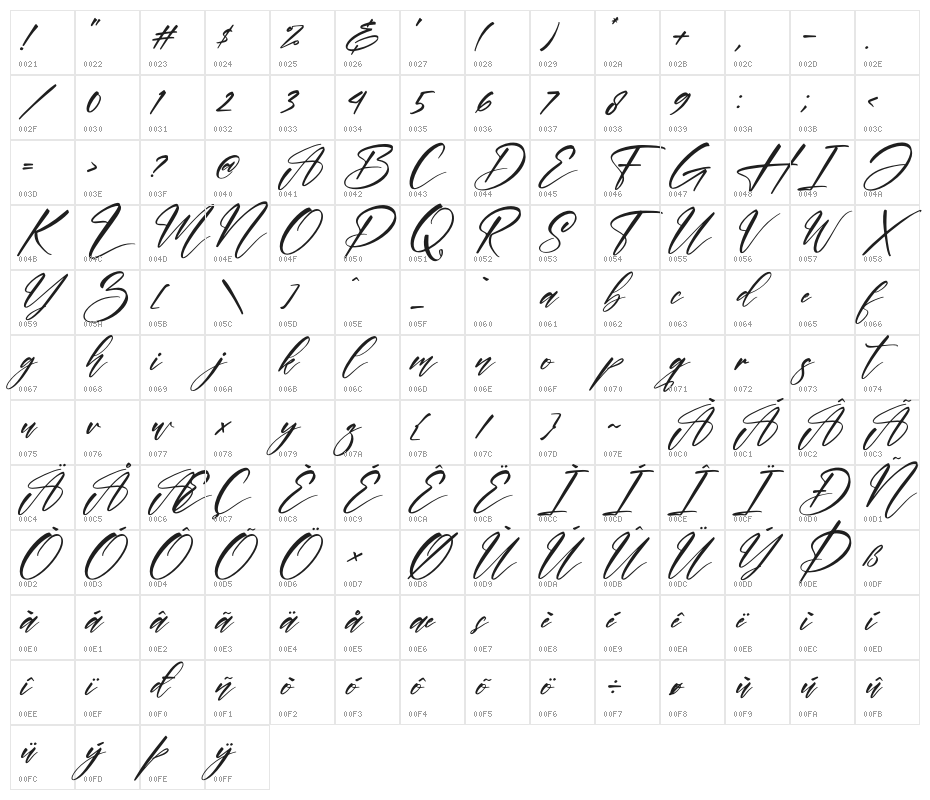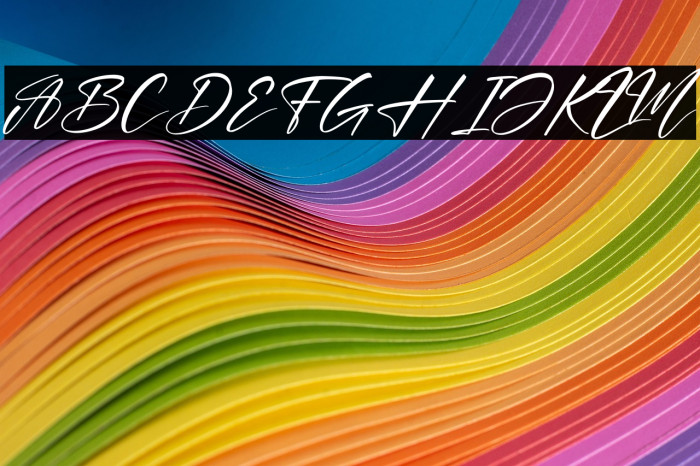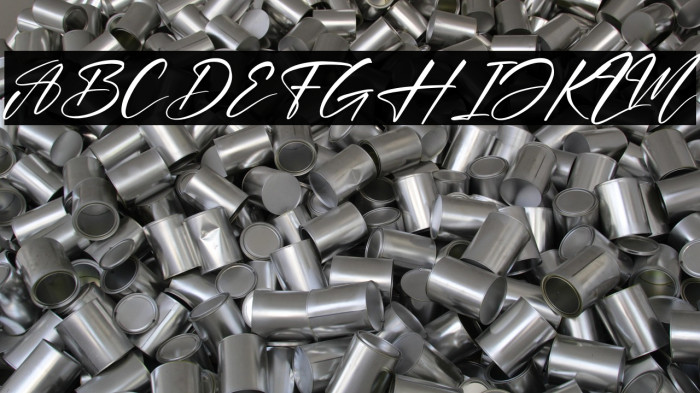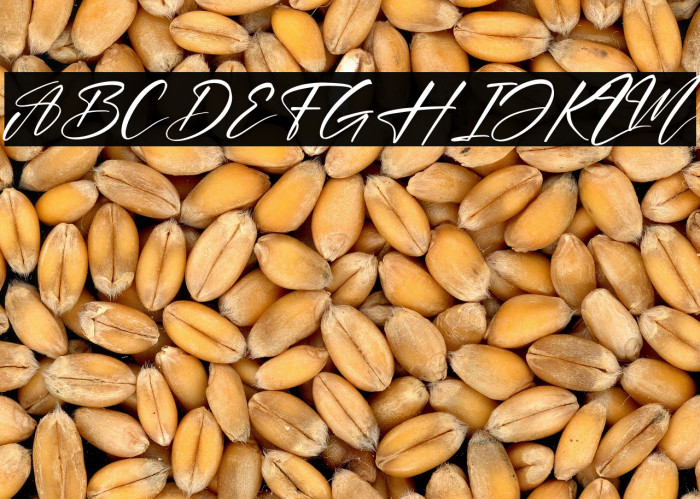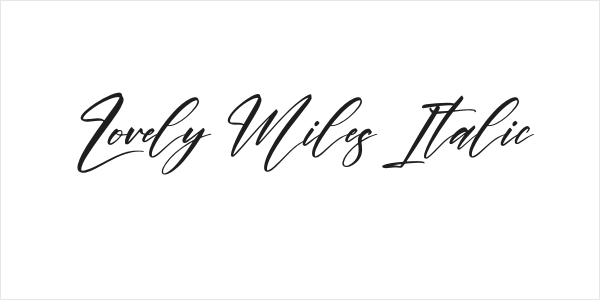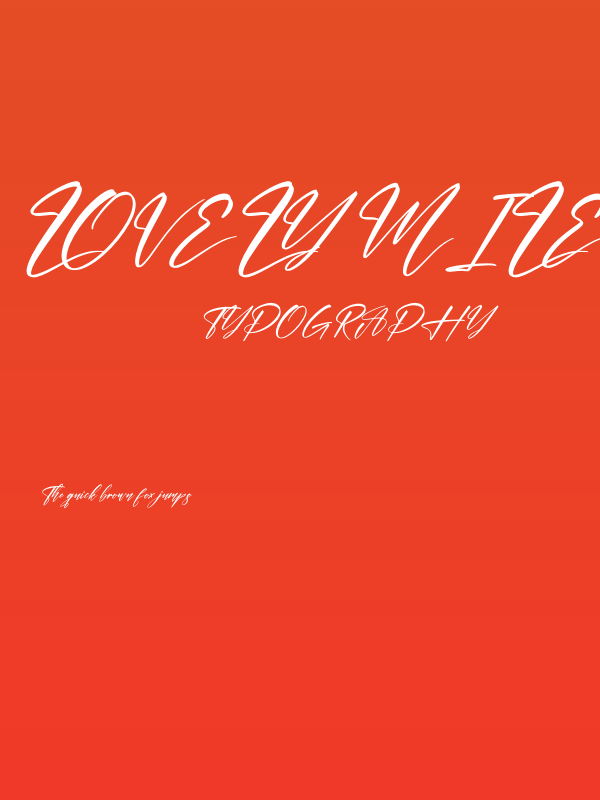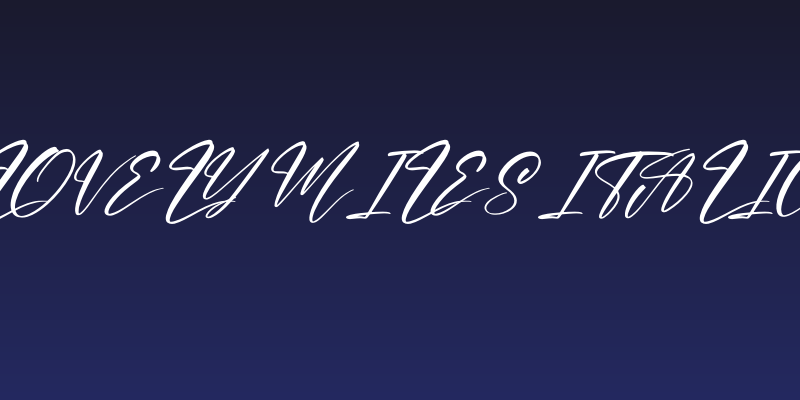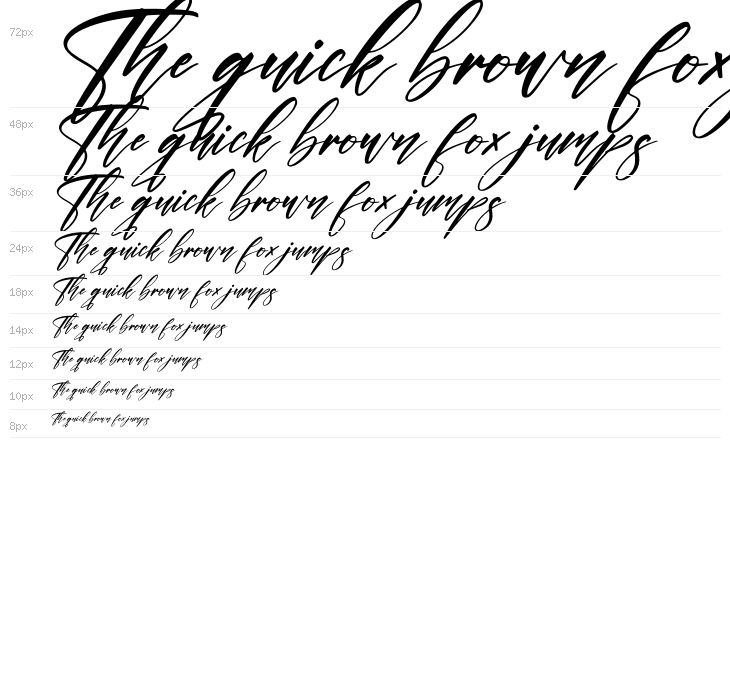
Lovely Miles Italic Font
Lovely Miles Italic Description
This font exudes elegance and sophistication with its flowing, cursive style. The letters are interconnected, creating a seamless and fluid appearance that mimics natural handwriting. The uppercase letters are tall and graceful, while the lowercase letters maintain a consistent slant, enhancing the italicized effect. The numerals are stylishly integrated, maintaining the overall aesthetic. Special characters are thoughtfully designed to match the script's elegance. This font is perfect for projects that require a touch of class and personality.
| Use Case | Logos, Invitations, Personal Stationery |
| Proposed Projects | Ideal for wedding invitations, elegant branding, personal stationery, and any project that requires a touch of sophistication. |